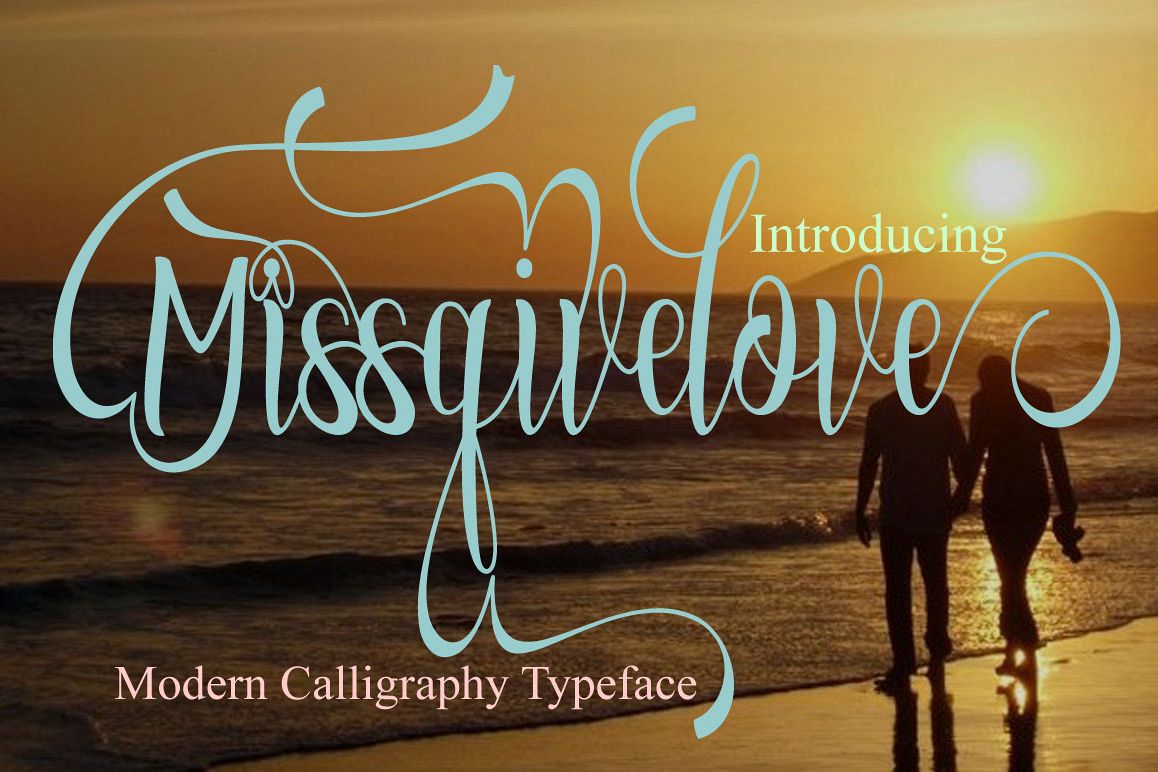
Missgivelove
Introducing!
Missgivelove is another lovely modern calligraphy typefaces, which is combining
the style of classic calligraphy with an modern style. combines from
copperplate to contemporary typeface with a dancing baseline, modern and
elegant touch.
The Features of this fonts is;
• Standart ligatures
• Discretionary ligatures
• Swash Alternates
• Stylistic sets
• PUA Unicode (Private Use Areas)
Can be used for various purposes.such as headings, logos, wedding invitation,